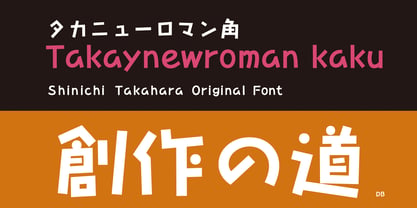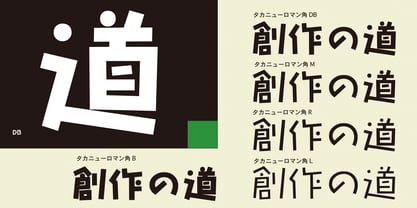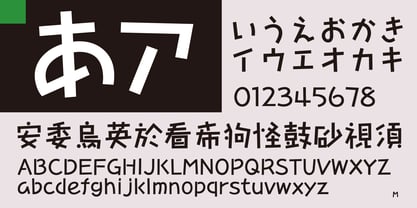
Takanewroman-kaku
by Taka Design Production
The Takanewroman-kaku Font Family was designed by and published by Taka Design Production. Takanewroman-kaku contains 5 styles and family package options. More about this family
A new version of the Takaroman series. The slightly more modest omission of lettering enhances legibility, but retains the cuteness and warmth of the original.